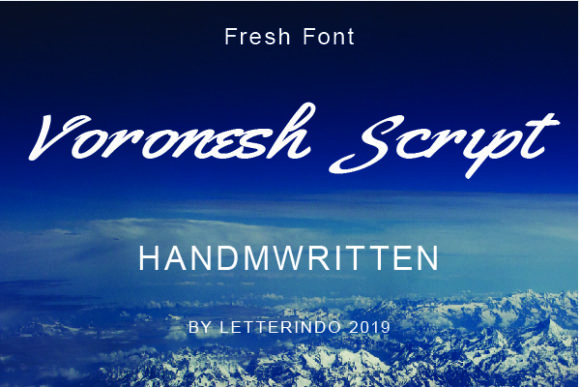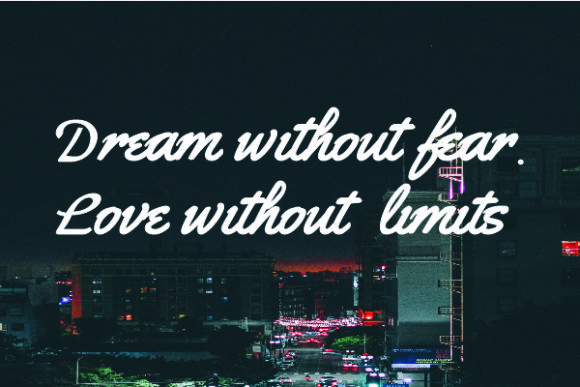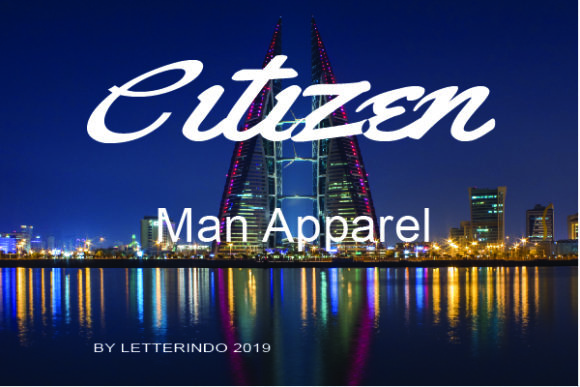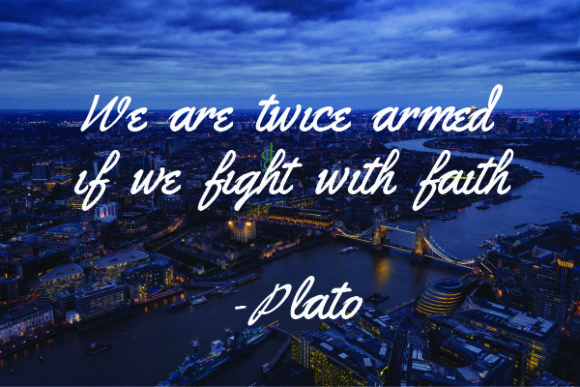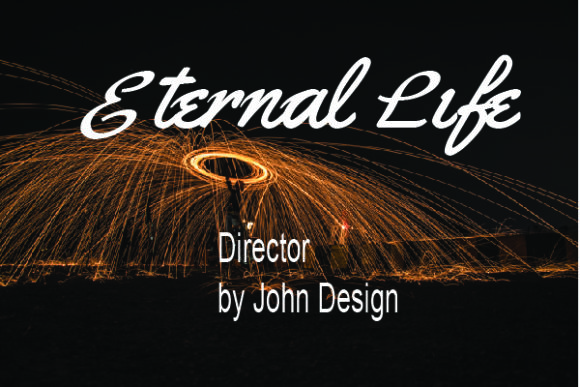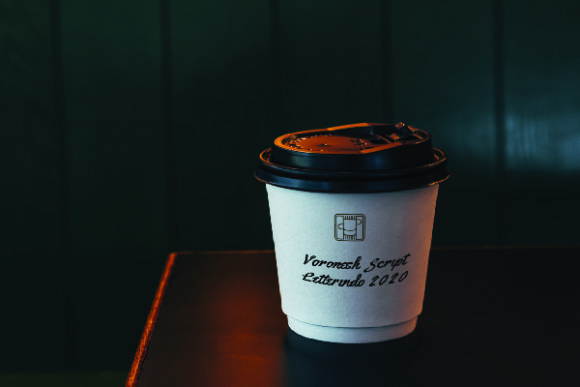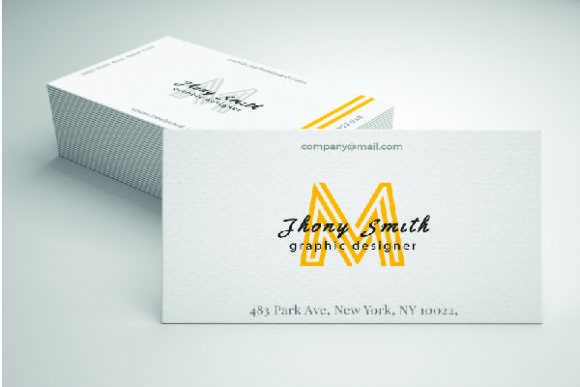
Voronesh Font
About Voronesh Font
Voronesh is a delicate script font. Fall in love with its authentic feel and use it to create gorgeous wedding invitations, beautiful stationary art, eye-catching social media posts, and cute greeting cards.